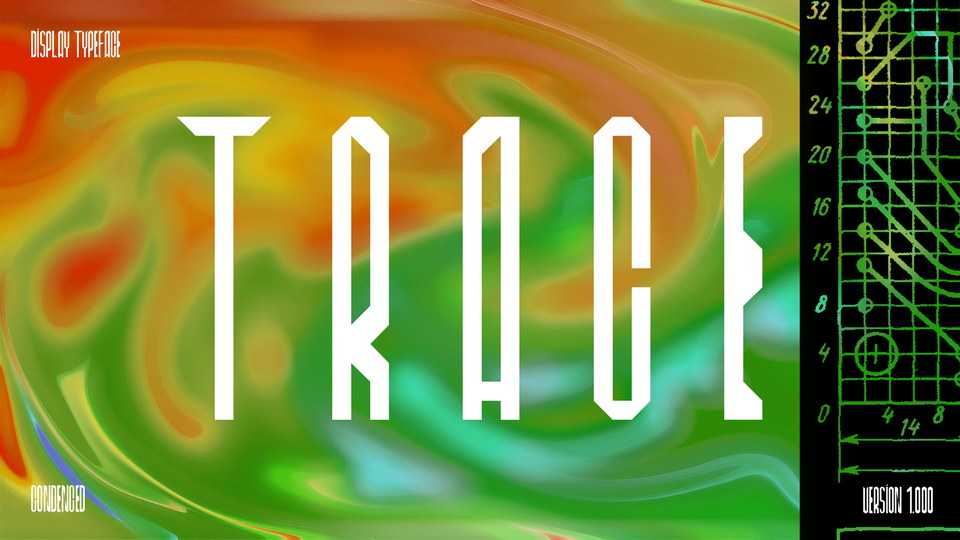
Download Trace font, a display typeface inspired by modern microscheme. Mostly, use Trace for headers or helping elements in your design.
Designer: Anton Romanov